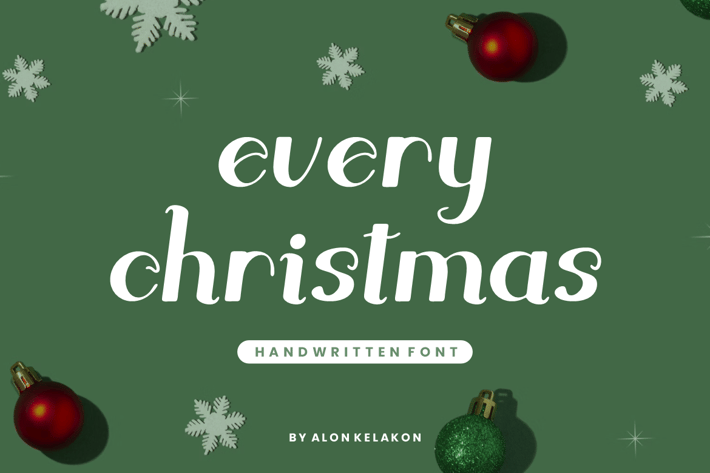
Every - Christmas Font
Every - Christmas Font Font is unique . Ready to use for your design like labeling, movie sceen, poster, movie title, gigs, album covers, logos, and much more.